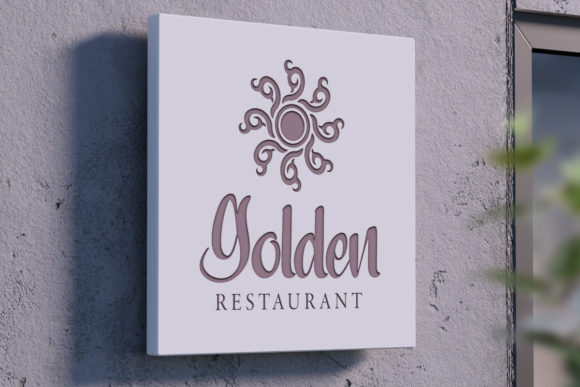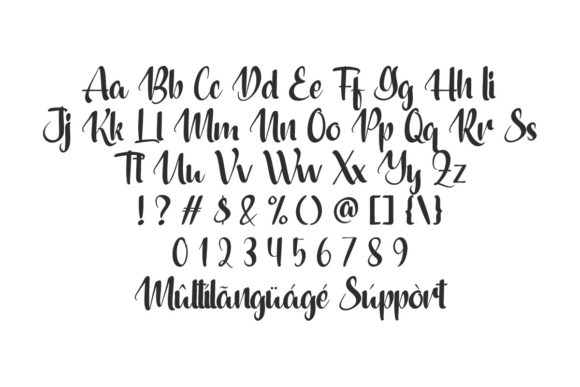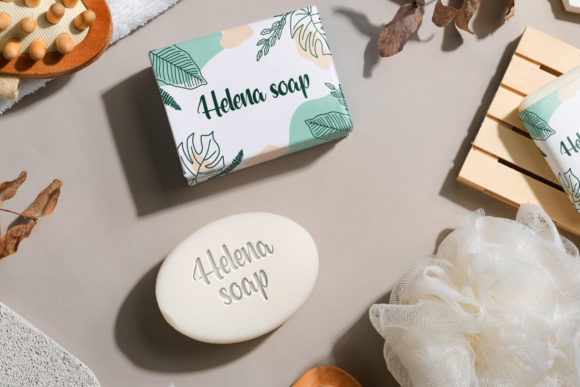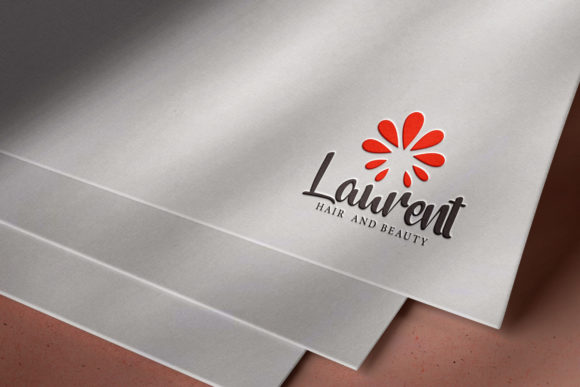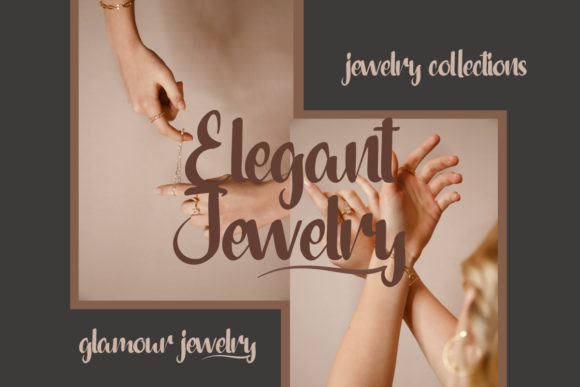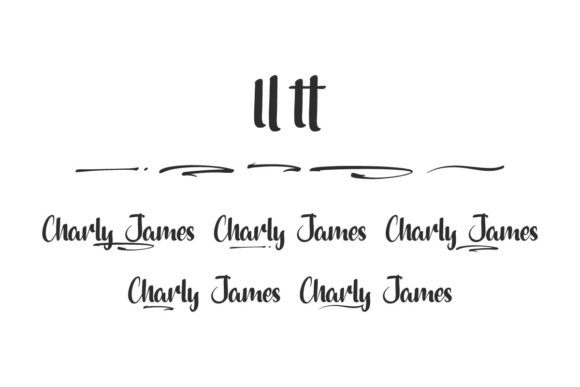
The Perfect Handwritten Font for Your Design Projects: Charly James
Have you ever been in the middle of a design project, and suddenly, you’re stuck on finding the perfect font? I recall a particularly frustrating experience while working on a wedding invitation design. My client wanted a font that was both elegant and playful, but I just couldn’t seem to find the right fit. That’s when I stumbled upon Charly James, a relaxed and friendly handwritten font that has since become a staple in my design toolkit.
A Personal Review of Charly James
- ✨ Elegant yet casual: Charly James strikes the perfect balance between elegance and casualness, making it suitable for a wide range of design projects.
- ✅ Highly versatile: From wedding invitations to business cards, Charly James looks stunning on any design that needs a customized touch.
- 💕 Emotional connection: This font has a way of evoking emotions and adding a personal touch to your designs, making them more relatable and engaging.
While Charly James is an excellent font, there are a few minor quirks to be aware of:
- ⚠️ Limited use in very formal contexts: Due to its casual nature, Charly James might not be the best fit for very formal designs, such as corporate reports or academic papers.
- 🤔 Requires attention to spacing: As with any handwritten font, Charly James requires a bit of attention to spacing to ensure it looks its best.
The Story Behind Charly James
Charly James was designed with the intention of creating a font that felt both personal and approachable. The designer aimed to craft a font that would be perfect for designs that require a human touch, such as wedding invitations, greeting cards, and quotes.
| Font Name | Charly James Font |
| Author | NihStudio |
Q: What type of projects is Charly James best suited for?
A: Charly James is perfect for designs that require a personalized touch, such as wedding invitations, thank you cards, quotes, greeting cards, logos, and business cards.
Q: Does Charly James support OpenType features?
A: Yes, Charly James supports OpenType features, including glyphs and stylistic alternates, which can be accessed in compatible design software.
Q: Is Charly James easy to read?
A: Yes, Charly James is a highly legible font, making it perfect for designs that require a clear and readable text.